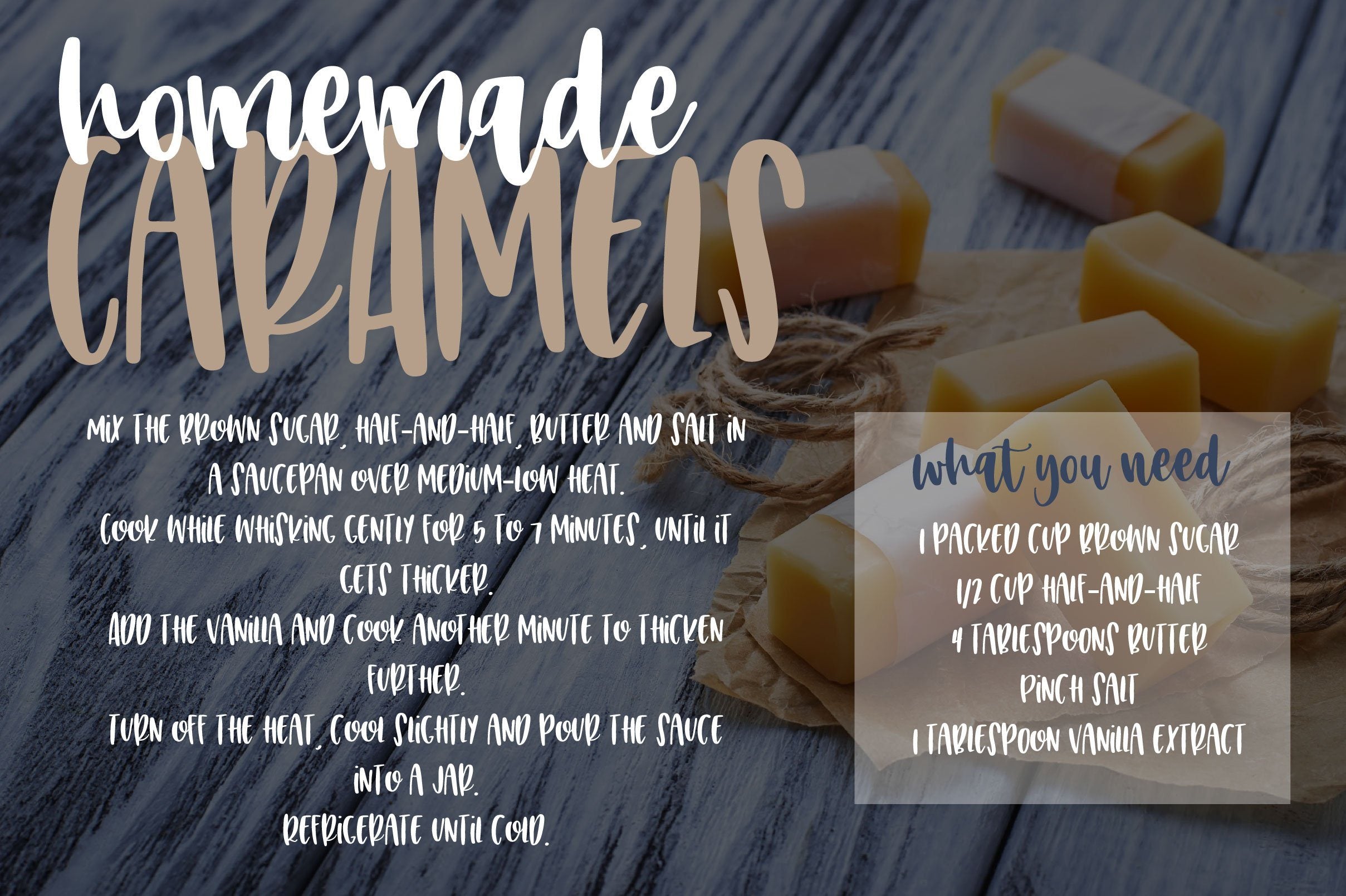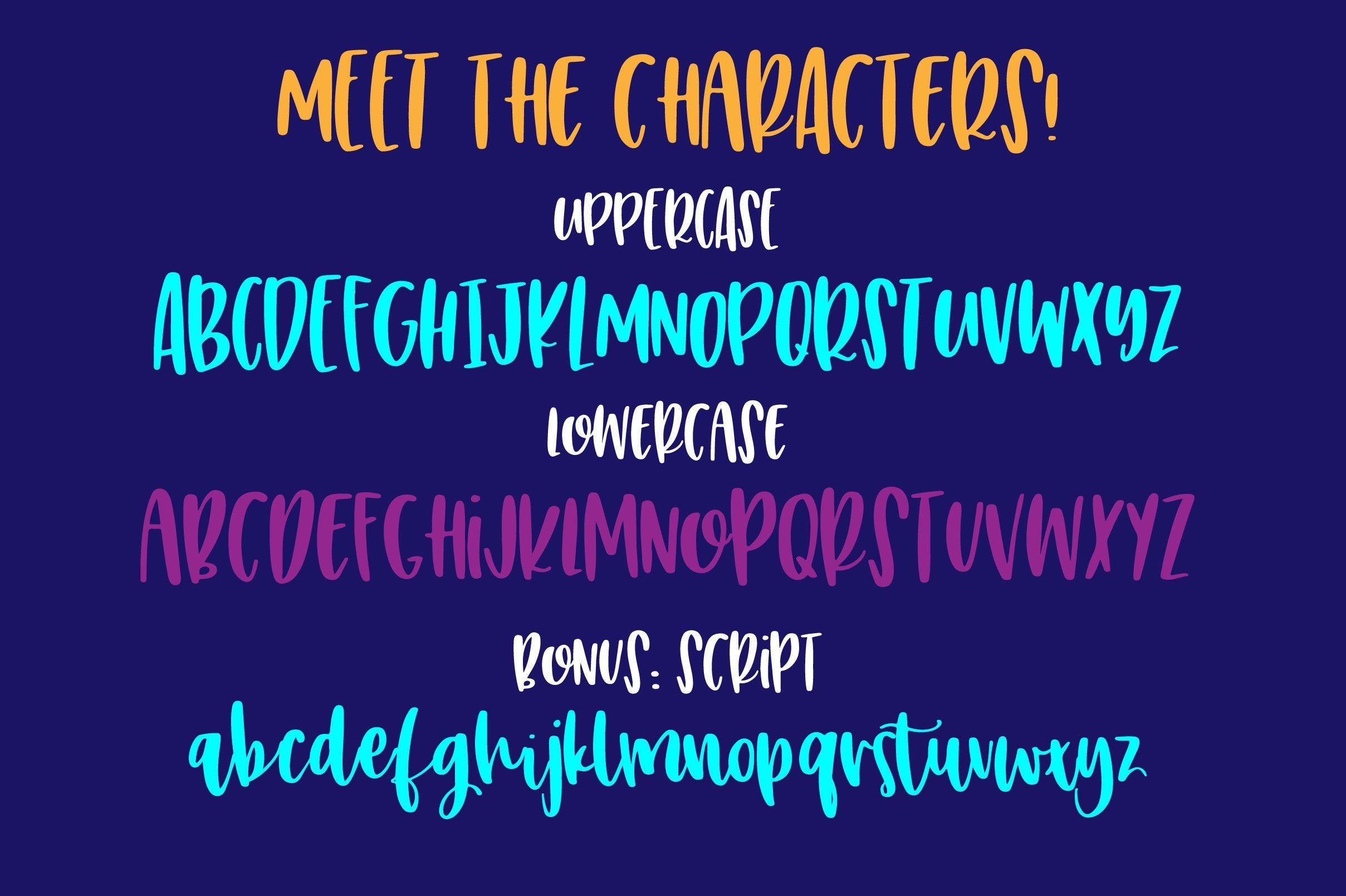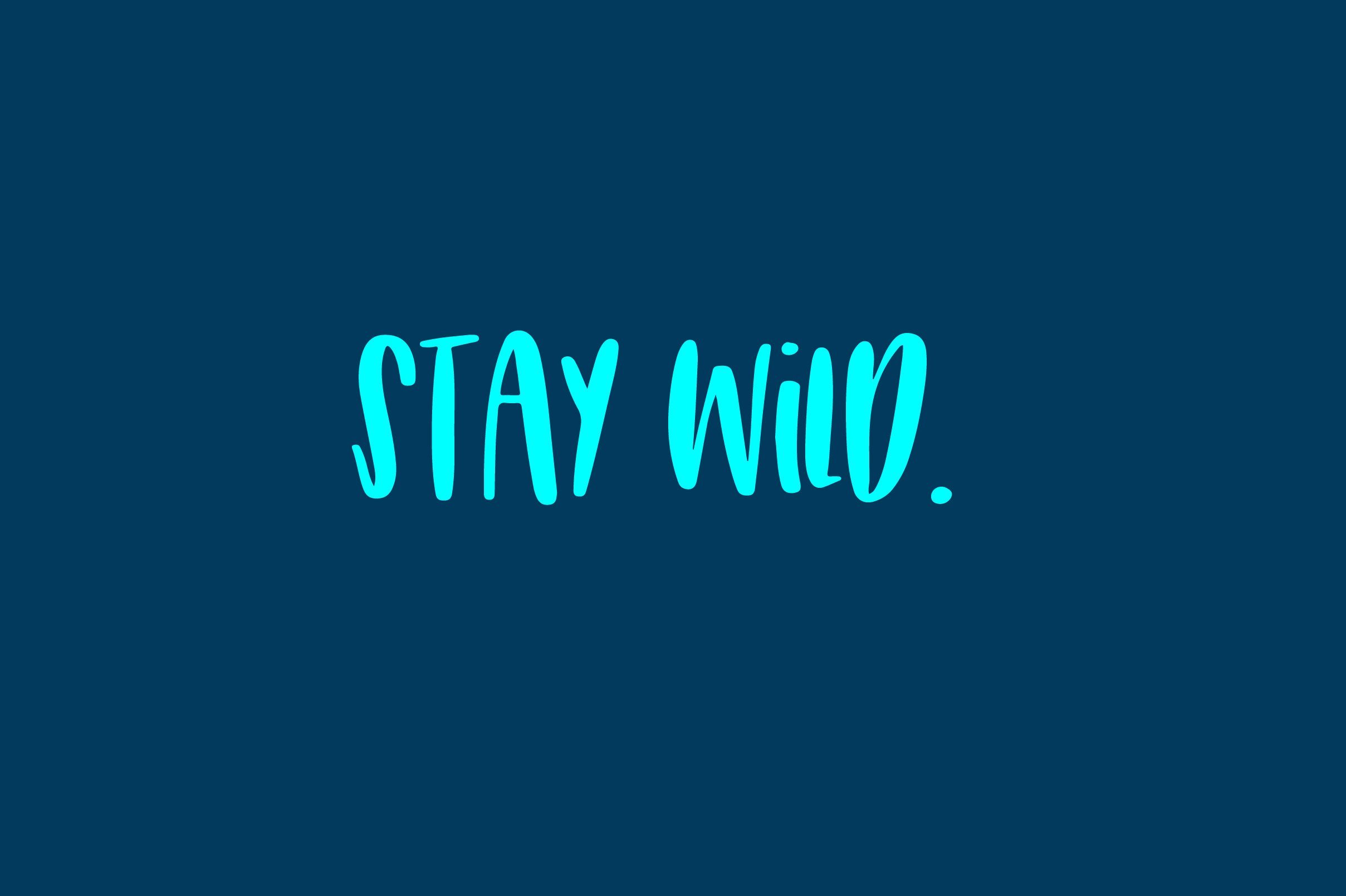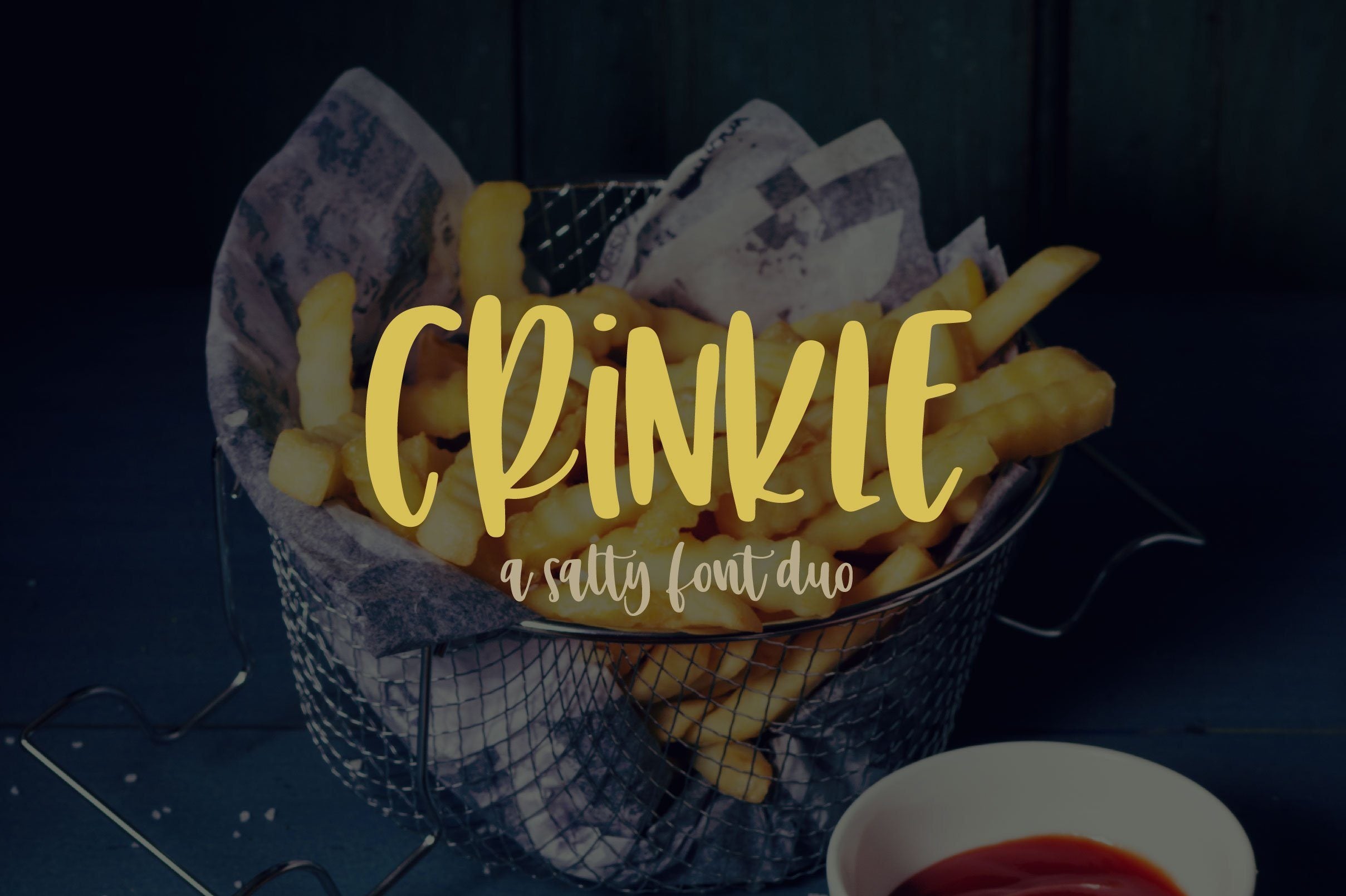
HomeScript FontsCrinkle Script Fonts Crinkle FacebookXPinterestWhatsApp 1 of 5 ... ... ... ... ... About Crinkle Meet Crinkle, a fun mixed case font that gives the feeling of ‘jotting’ something down real fast! BONUS: lowercase script font to coordinate and work seamlessly with Crinkle! DOWNLOAD NOW People also explored Bhauttine Font Anything Font Irish Grover Pro Cometime Font Buterflies Font Amattera Million Font Brownie Cookie Font Chupada Ernst Font 286 0 TagsCrinkle Previous articleA Serendipity FontNext articleCupid LEAVE A REPLY Cancel reply Comment: Please enter your comment! Name:* Please enter your name here Email:* You have entered an incorrect email address! Please enter your email address here Website: Save my name, email, and website in this browser for the next time I comment. Personal Use Free Critical Personal Use Free Read more about this font Geracella Personal Use Free Read more about this font Mail Ray Stuff Personal Use Free Read more about this font Lover Loves Personal Use Free Read more about this font BLOG Using Fonts in Digital Marketing: Tips to Strengthen Your Brand Identity In the realm of digital marketing, every visual element plays a crucial role in shaping a brand's identity, and fonts are no exception. The... 5 Fonts That Will Dominate Design Trends in 2026 Top 7 Google Fonts Alternatives for Faster and Privacy-Friendly Web Design (2025) Free vs Paid Fonts: Why Investing in Premium Fonts Is Worth It